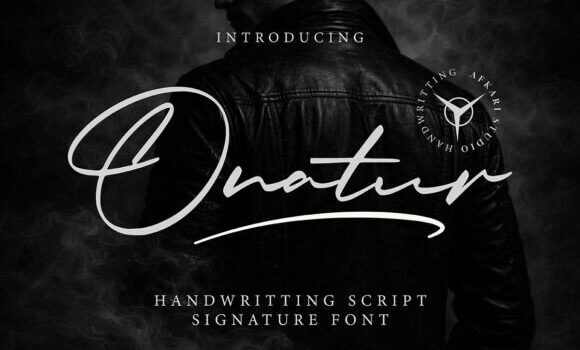
onatur
Onatur Font – Free Download Introduction to Onatur Font Onatur is a modern handwritten signature script font crafted to create elegant, natural, and stylish typography. 📸 Preview Gallery 6 images 📌 Product Name Onatur Font 👤 Author afkaristudio 📂 Category